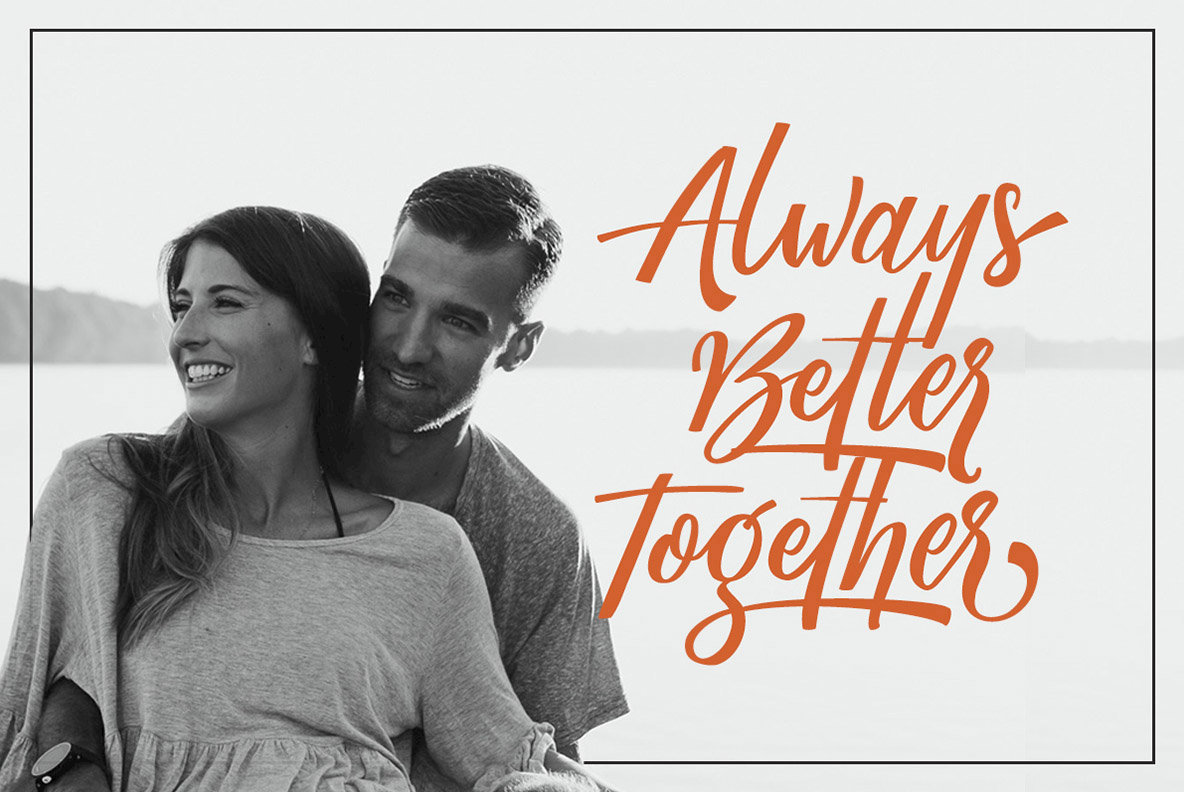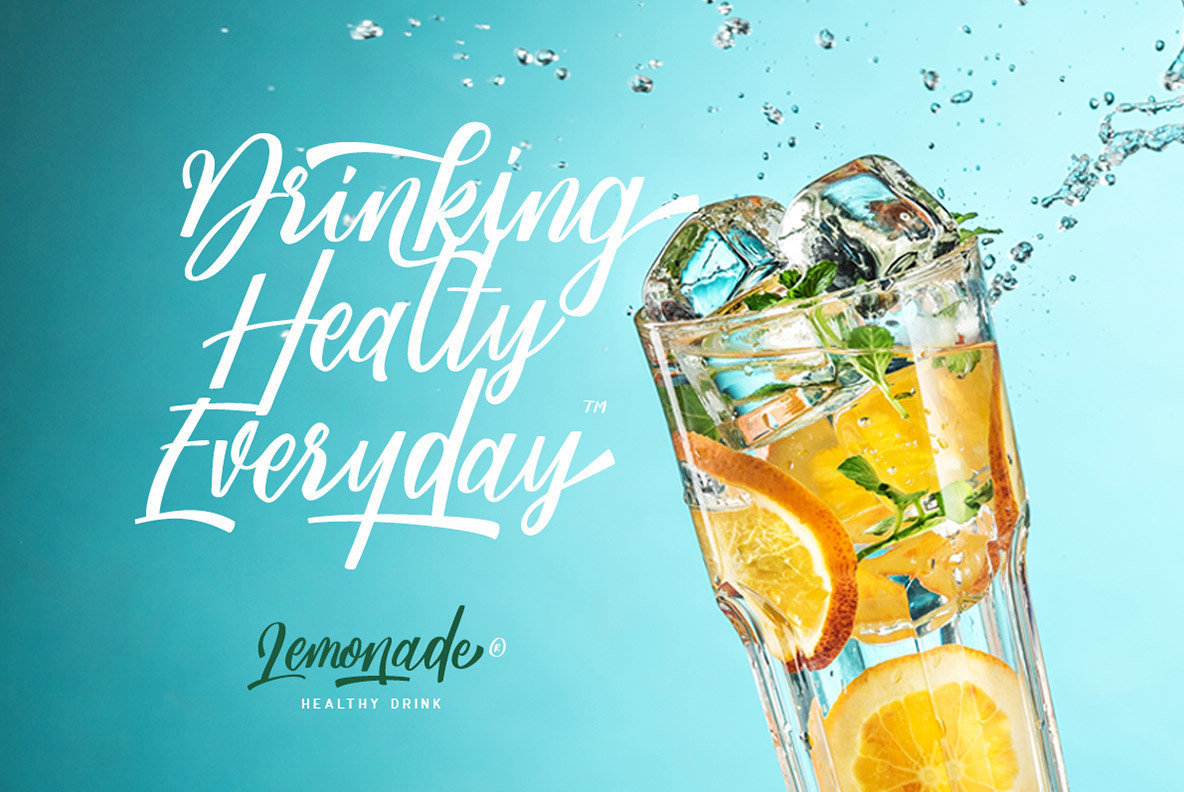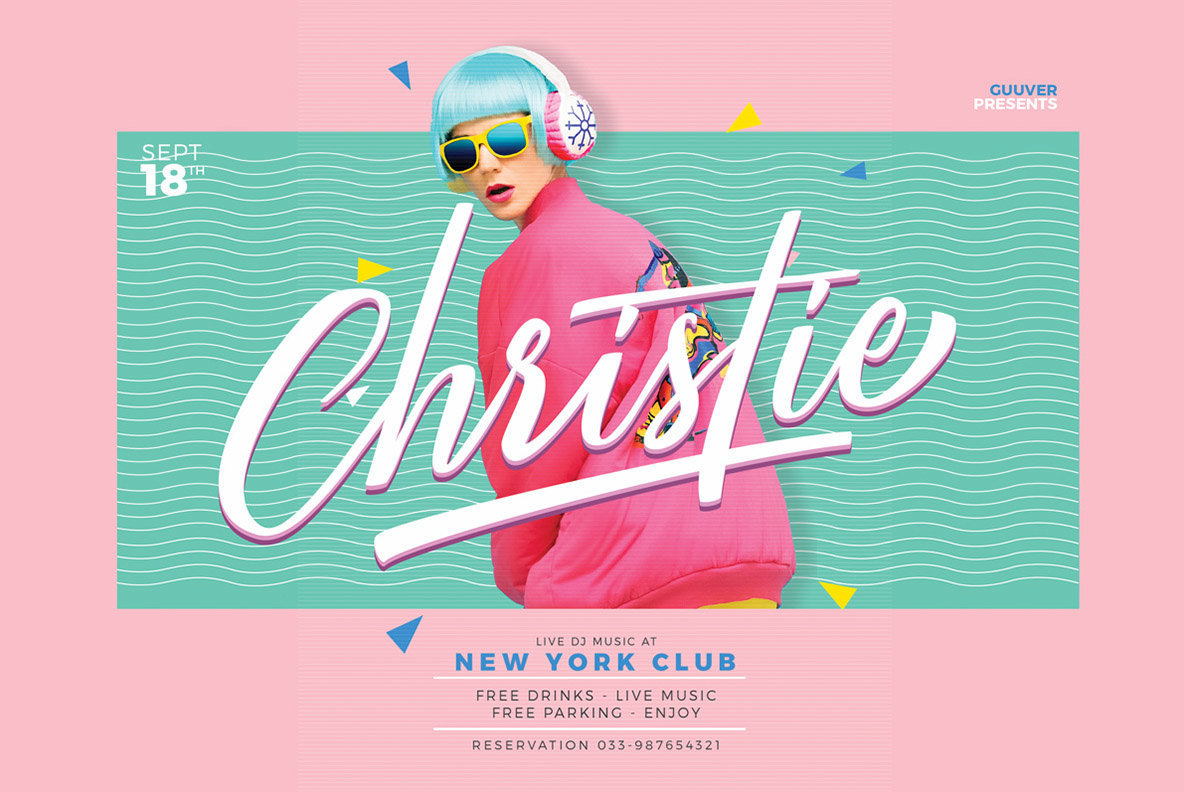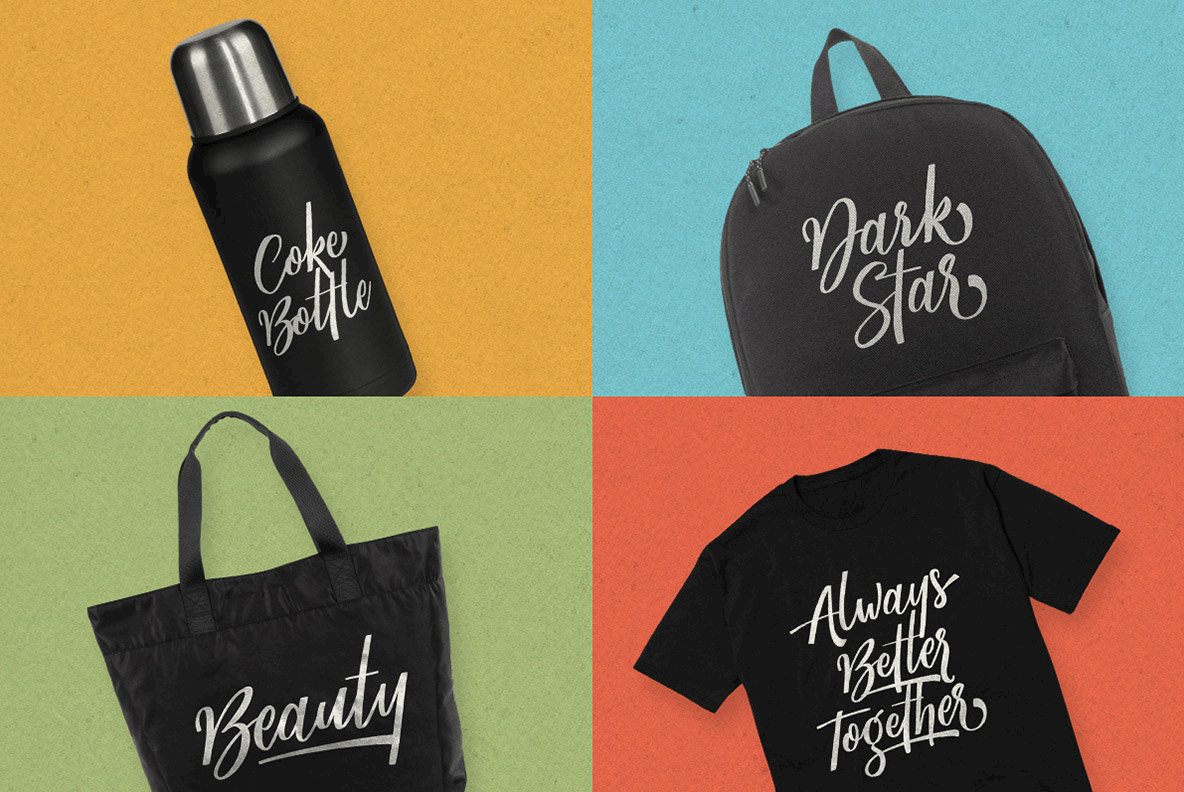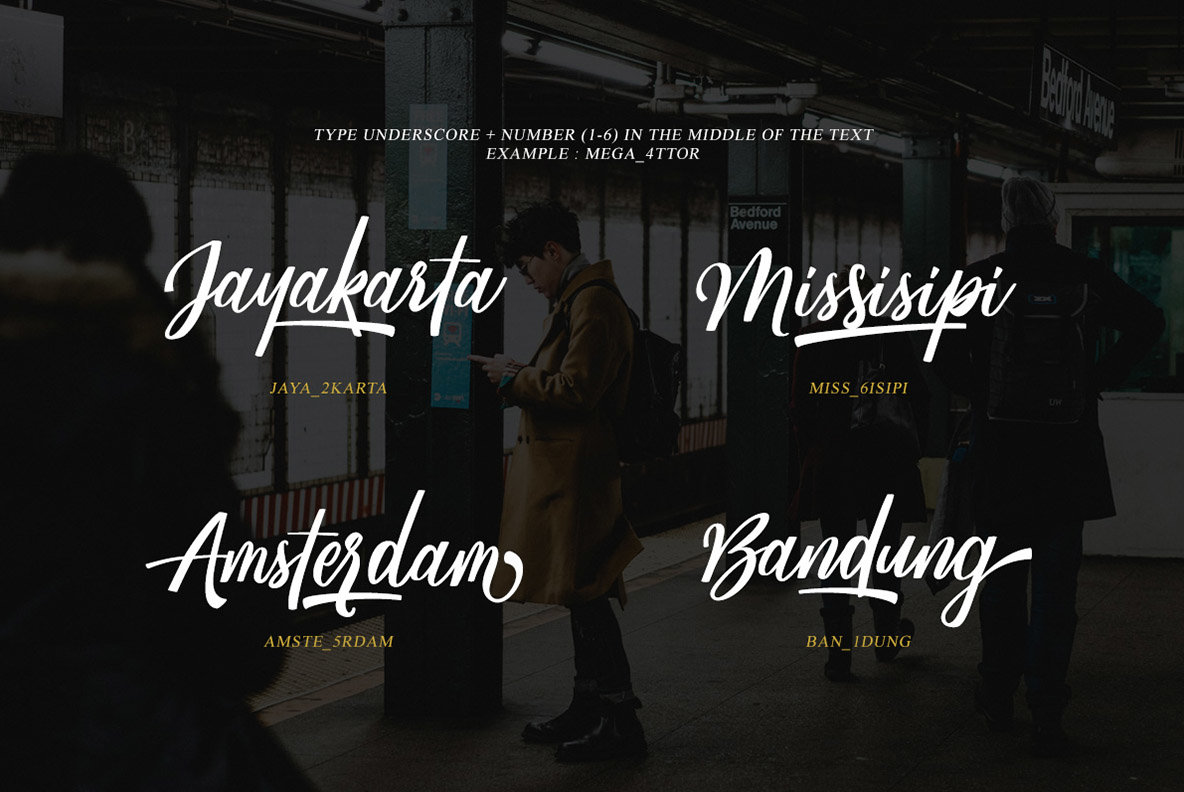
Megattor Font
Megattor
Megattor by Letterhend Studio beautifully captures the essence of natural handwriting in a versatile typeface. This font seamlessly combines bold and thin strokes, creating the appearance of authentic hand lettering straight from your keyboard, ideal for script logo projects and more. Its design draws inspiration from traditional handwriting, ensuring it meets diverse design requirements with sophistication.Megattor: Handcrafted Script Typeface